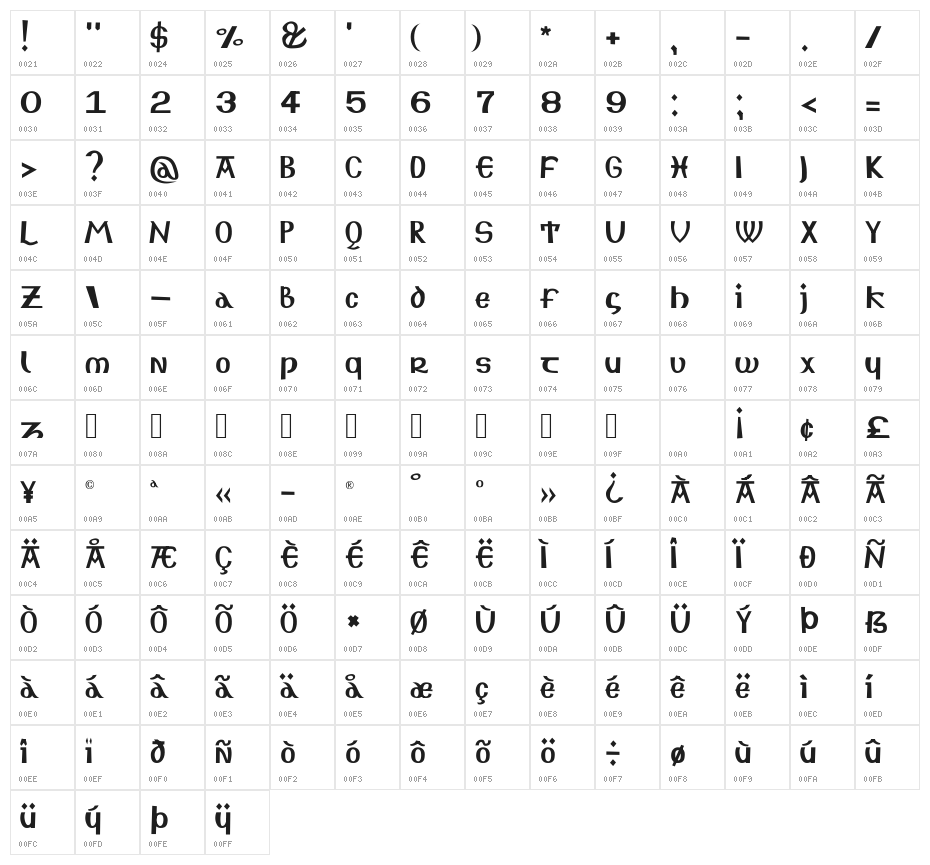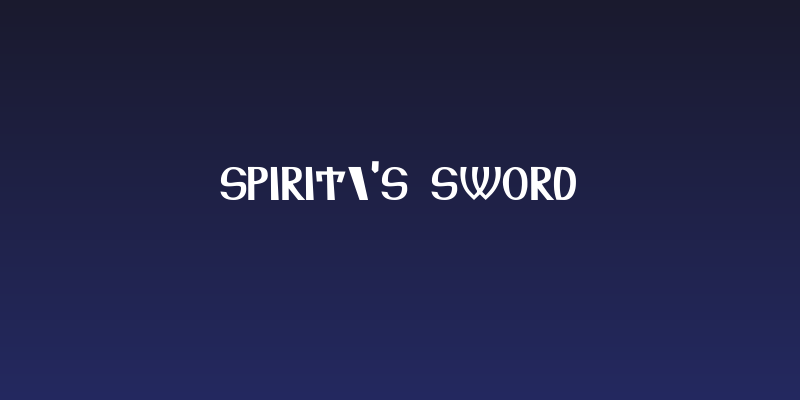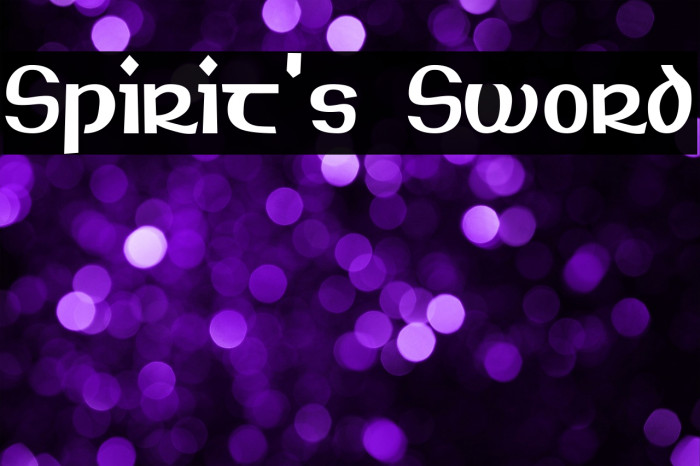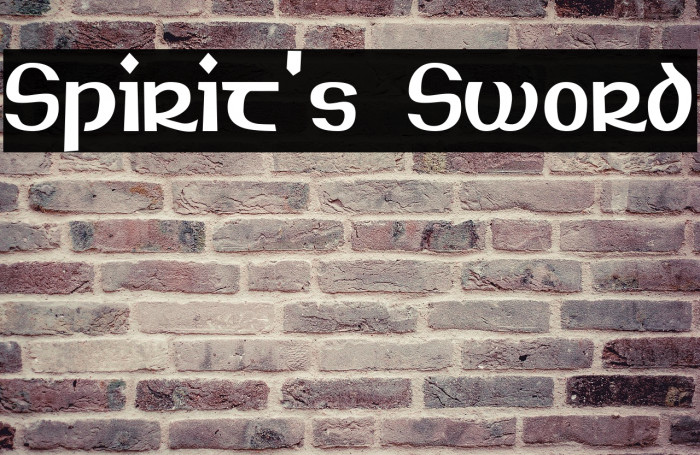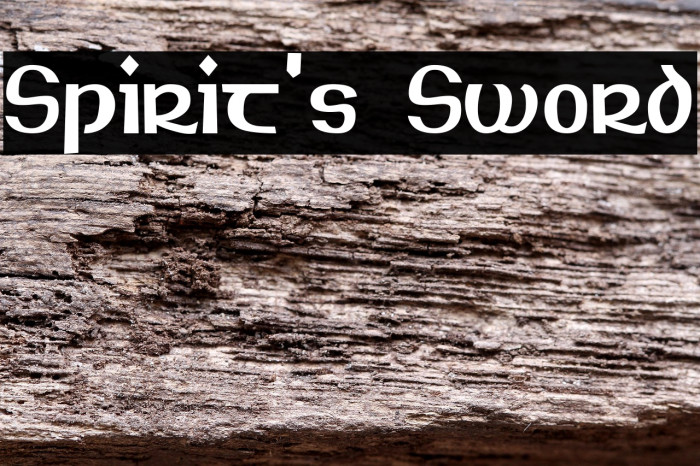
Spirit's Sword Font
Spirit's Sword Description
This font features a bold and dynamic style with sharp, angular edges and a slightly medieval flair. The uppercase letters are particularly striking, with unique serifs and a sense of movement that suggests a sword-like sharpness. The lowercase letters maintain this theme, offering a cohesive look across the alphabet. Numbers and special characters are designed with the same attention to detail, ensuring consistency throughout. The overall aesthetic is both bold and decorative, making it suitable for projects that require a strong visual impact.
| Proposed Projects | Ideal for fantasy-themed designs, book covers, video game titles, and branding that requires a strong, distinctive look. |